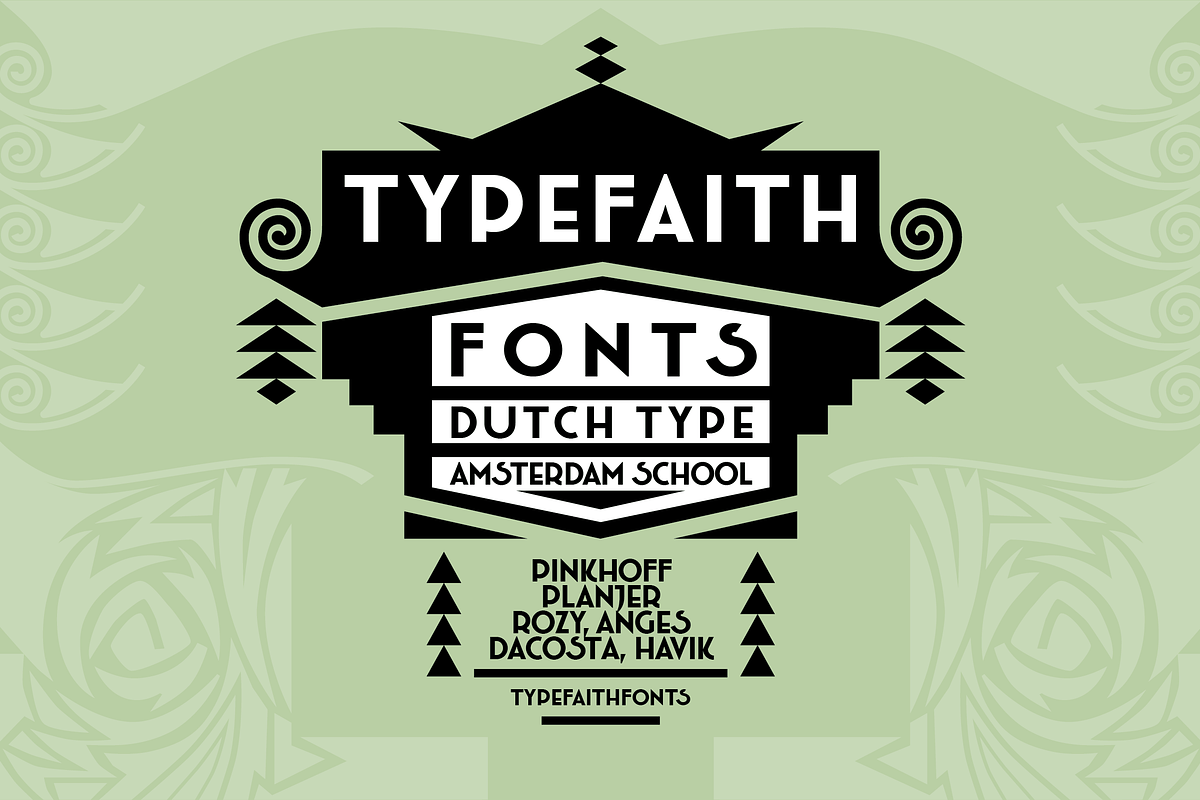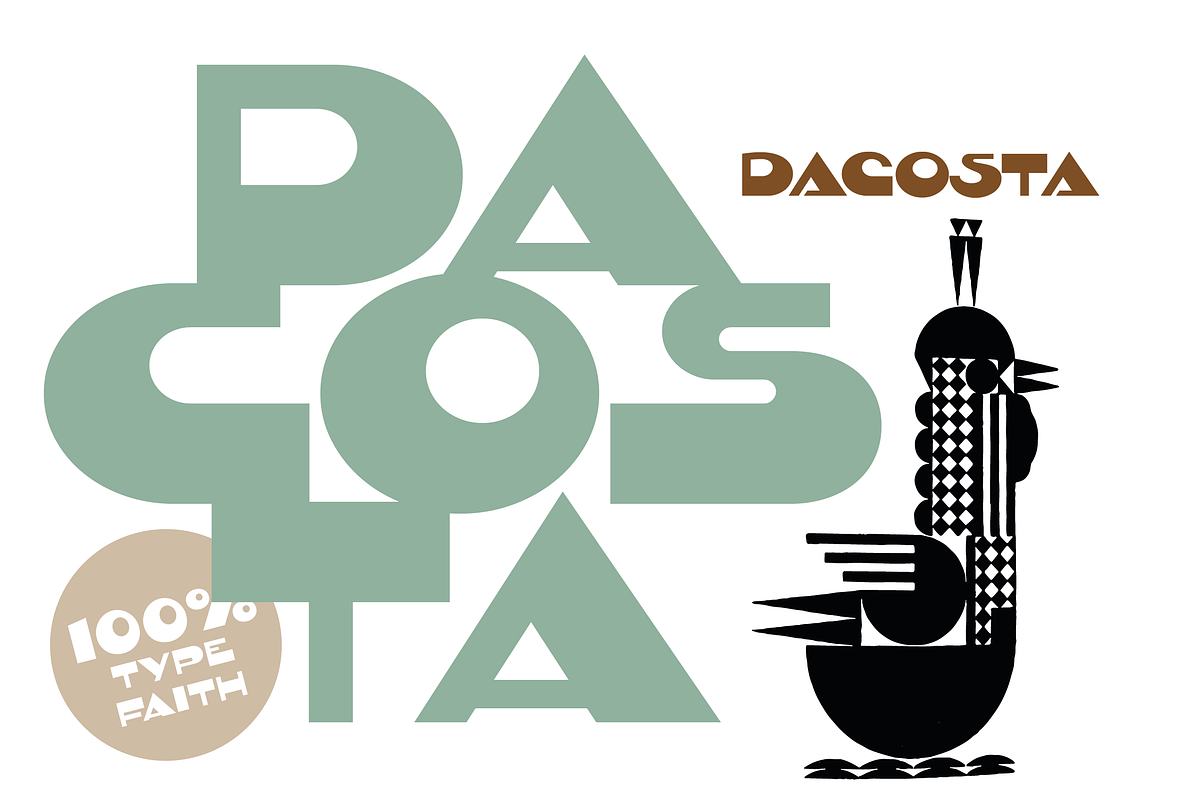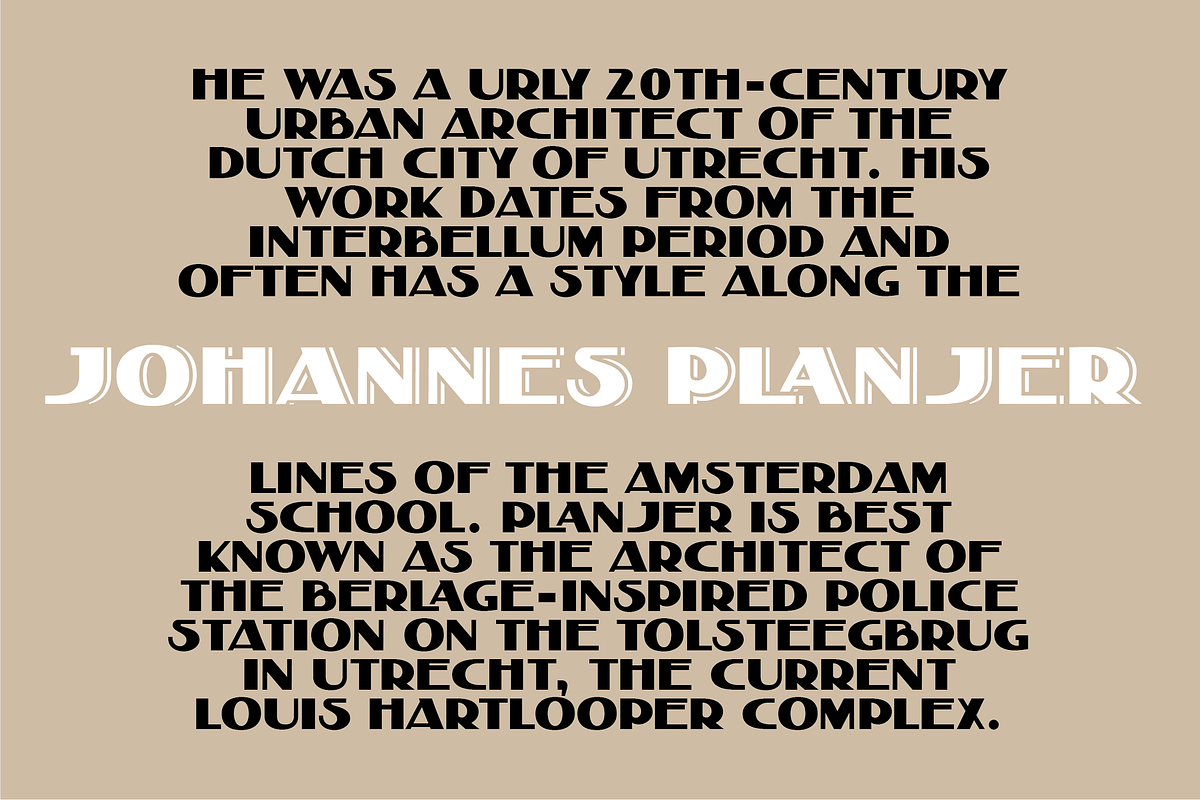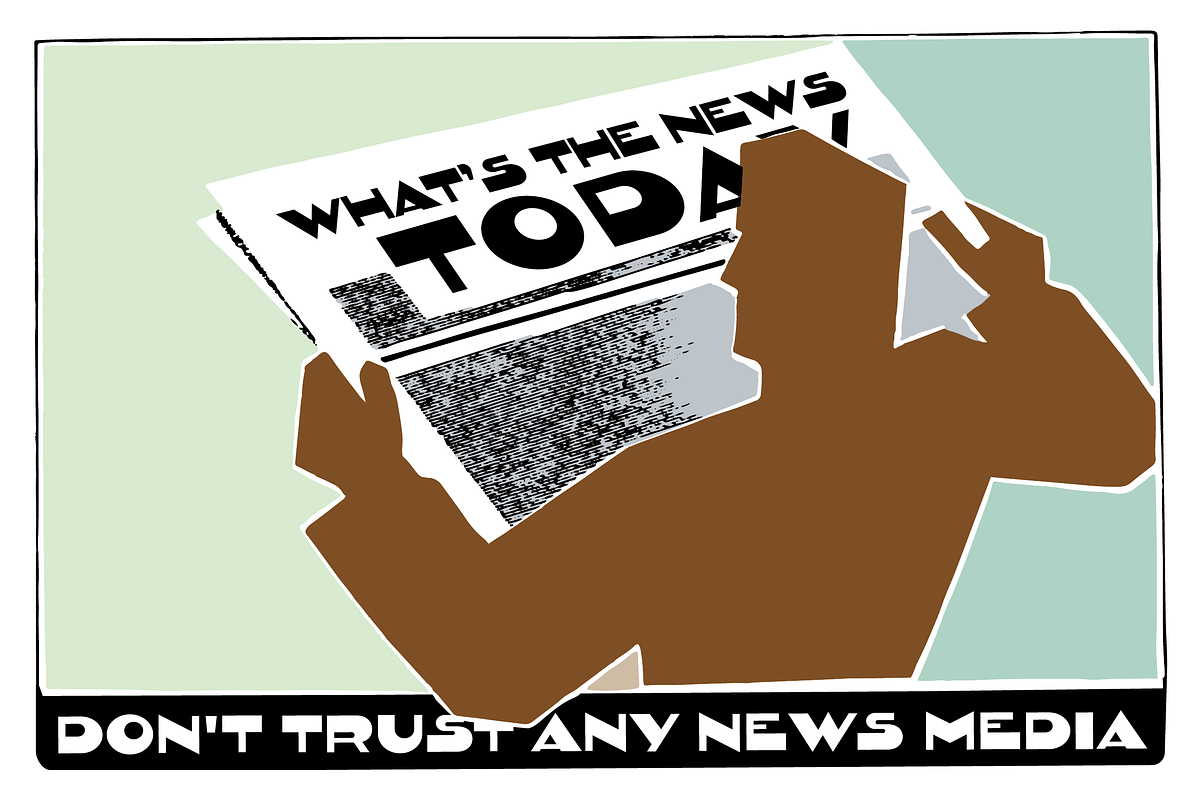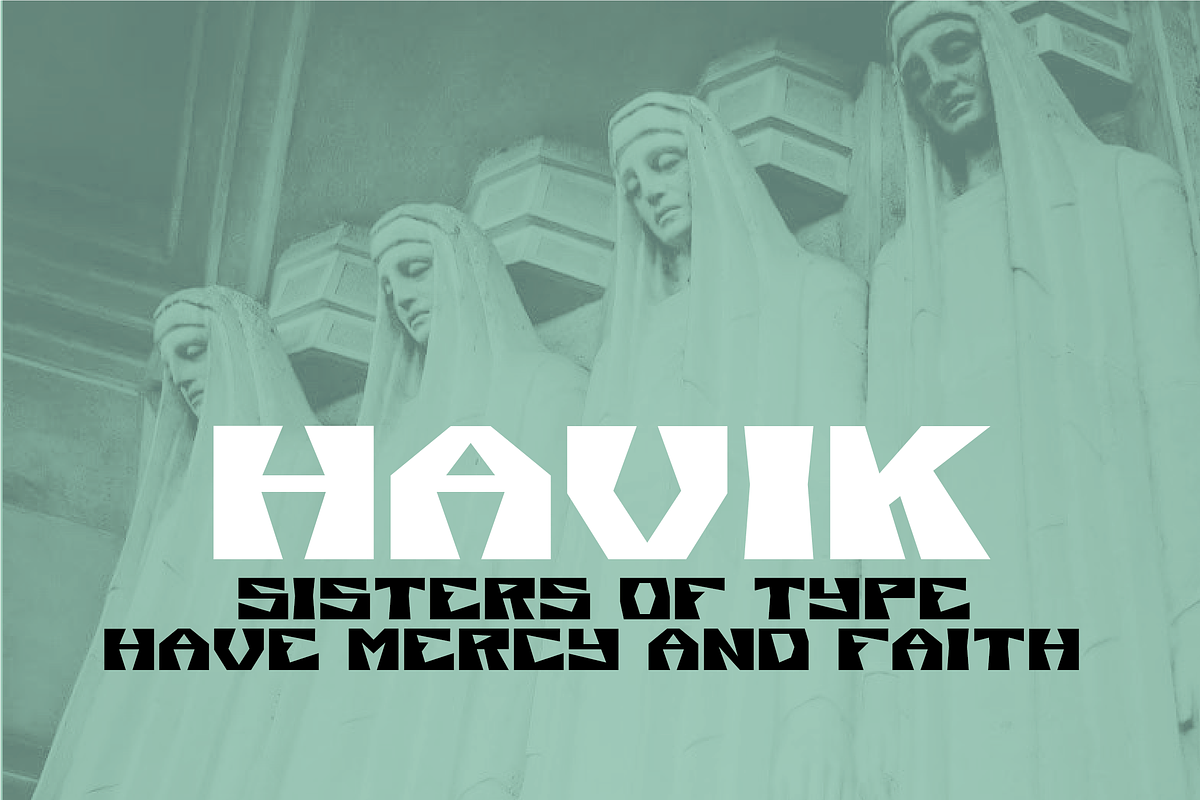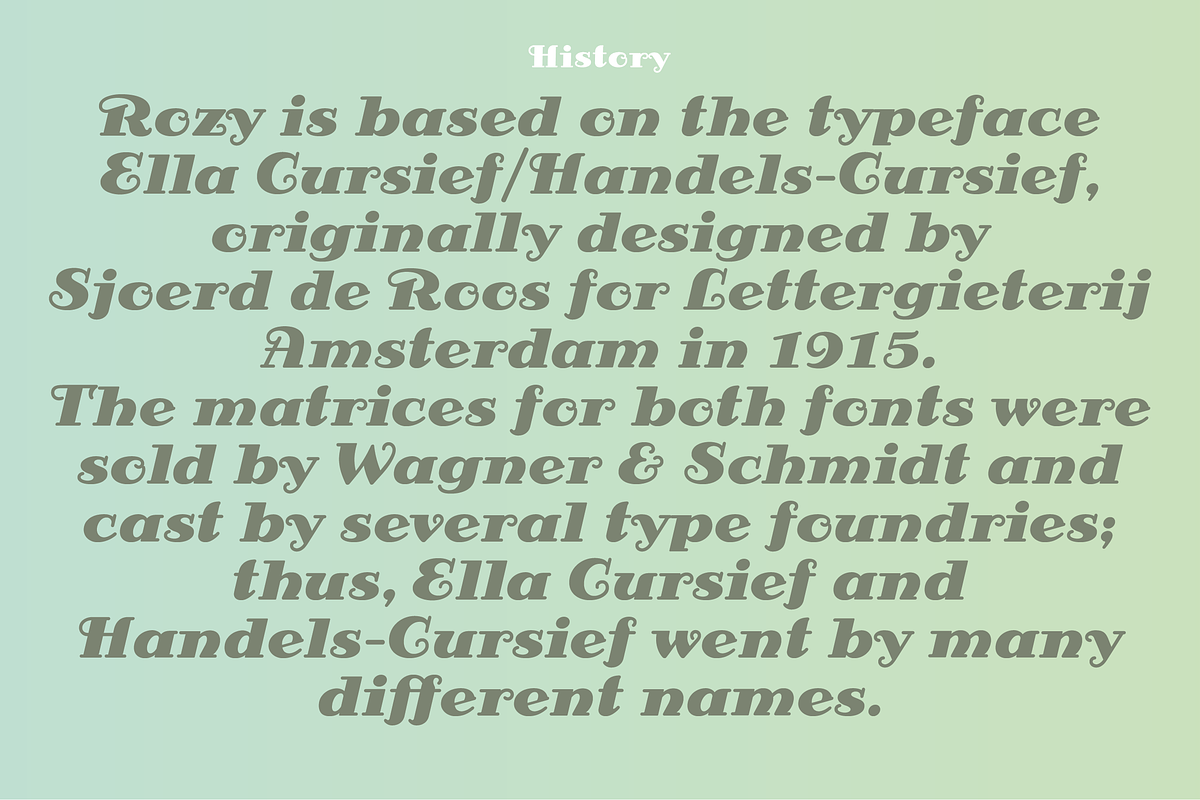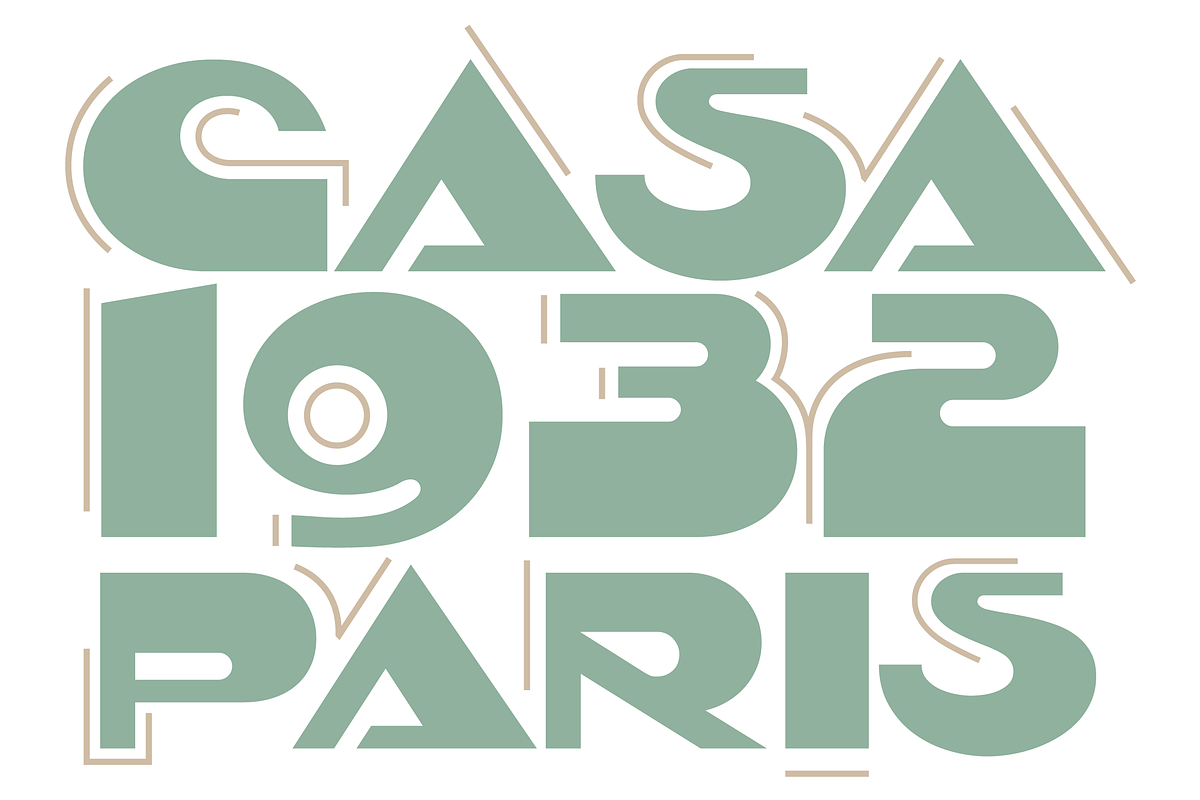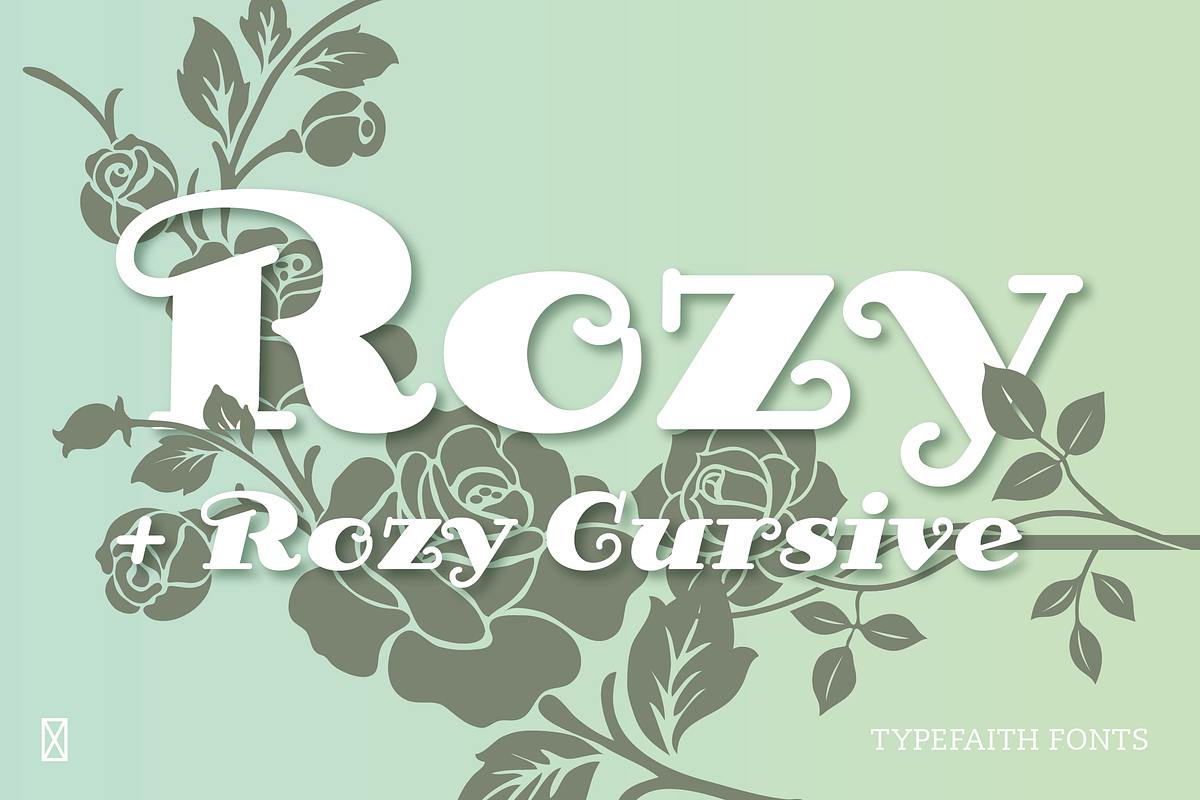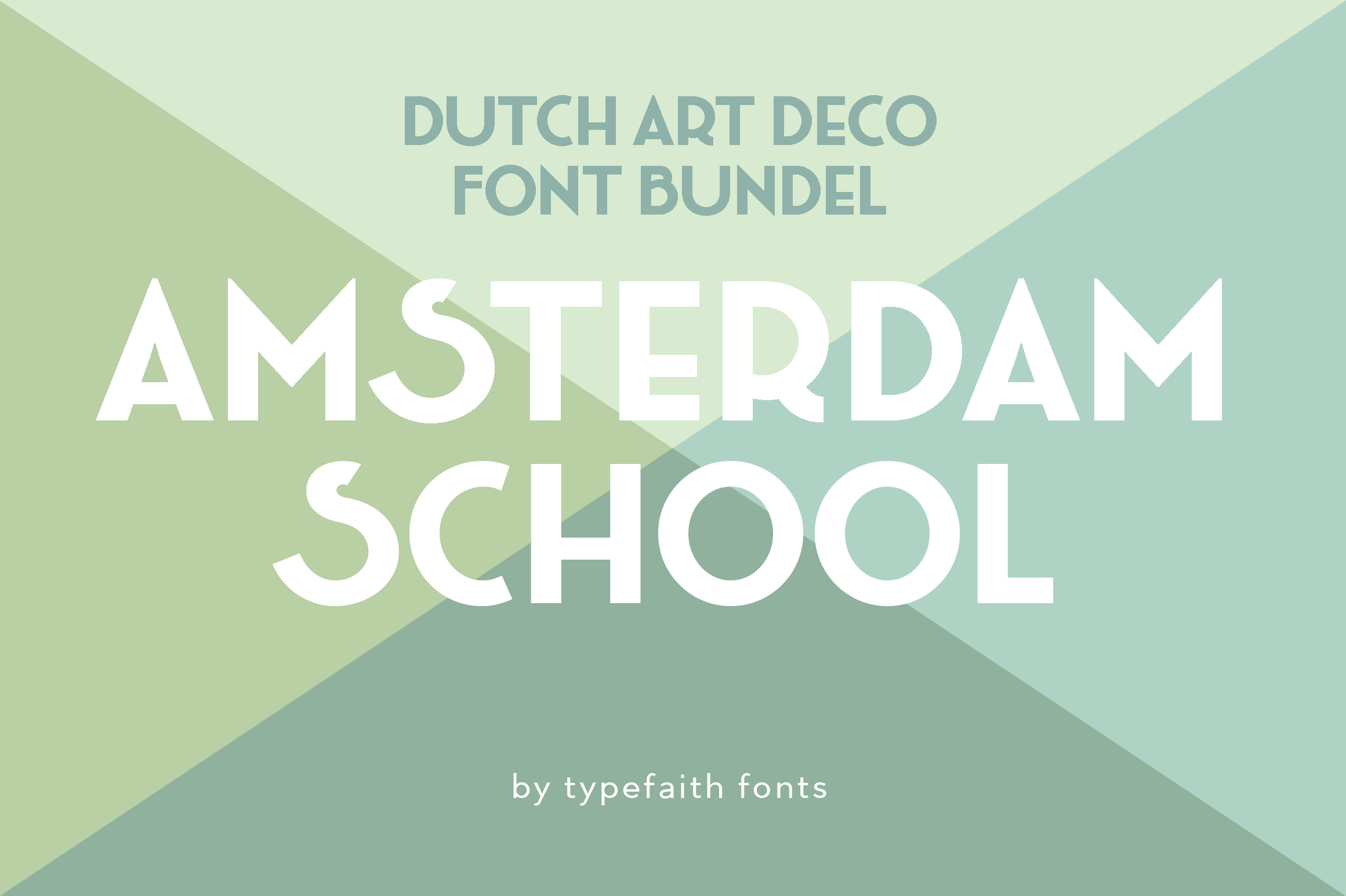
Amsterdam School font bundle
Fantastic! These 12 beautiful Amsterdam School fonts have now been brought together in one font bundle. Design the most beautiful Art Deco typography with this combination of fonts. Come back to the roaring twenties and crashing thirties.
Art deco typography from the Netherlands that summons a thirties vibe for a nostalgic twist on chic lines. It's the work of designer Leon Hulst. The layout examples here show that nostalgia is super cool in retro aesthetics. Yes, there is a touch of class in that worn-in look and feel, and the beautiful lines of the typography and numbers show how the barely restrained charisma of Art Deco can be married to the new obsession with the 1920s and 30s.
Hulst has given the typography a distinctly European aesthetic by basing it on Dutch Amsterdam School typography of the thirties. These fonts come with stylistic and contextual alternates, so you can imagine them on a sign anywhere from the Wild West to Montparnasse.